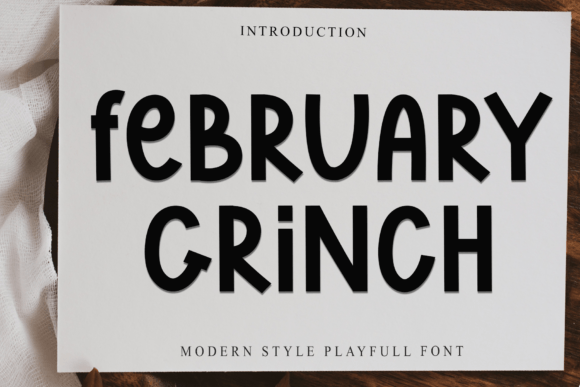
Bring a Touch of Quirk to Your Designs
Have you ever stared at a blank page, feeling like your creativity is stuck in neutral? You know, that moment when you’re desperate for a spark to ignite your imagination and bring your design to life? Well, we’ve got just the thing to get those creative juices flowing: the February Grinch Font.
This bold and playful typeface is perfect for designers looking to add a modern touch to their projects. With quirky letterforms that bring personality to your designs, the February Grinch Font is ideal for posters, headlines, invitations, and more. Whether you’re working on a creative project or simply want to add some flair to your everyday designs, this font is sure to make a statement. So why settle for boring when you can make your designs stand out with the February Grinch Font?
February Grinch Font Key Features
- Font Family: February Grinch is a sans-serif font family.
- Font Size: Offers a range of font sizes, from 8pt to 72pt, to cater to various design needs.
- Unique Characteristics: Features a unique, grinch-inspired design with bold and playful lines, making it perfect for creating eye-catching headlines and titles.
February Grinch Font Review
I recently had the chance to work with the February Grinch font, and I must say it’s a unique and quirky addition to any design project. ✨ One of the things that stands out to me is its versatility – it’s perfect for use in titles, headings, and even body text when you want to add a touch of whimsy.
Another thing I appreciate about February Grinch is its high level of customization options. With over 1000 glyphs and 12 styles to choose from, you can create a look that’s truly one-of-a-kind. ✨ I also appreciate the fact that it’s fully editable, which makes it easy to make adjustments as needed.
- Unique and quirky aesthetic
- High level of customization options
- Perfect for use in titles, headings, and body text
- May not be suitable for formal or professional projects
- Some users may find it too ornate or busy
- Requires a good understanding of font customization to get the most out of it
Overall, I think the February Grinch font is a great choice for designers who want to add a touch of personality to their projects. While it may not be suitable for every project, it’s definitely worth considering for the right type of design.
Tip: Use February Grinch Font to create a fun and playful design for Valentine’s Day or winter-themed projects.
Tip: Use February Grinch Font to create a custom logo or typography project.
Tip: Use February Grinch Font to add a playful touch to your presentations or documents.
February Grinch Font is perfect for:
- Valentine’s Day designs and projects.
- Winter-themed projects and designs.
- Custom logos and typography projects.
- Playful presentations and documents.